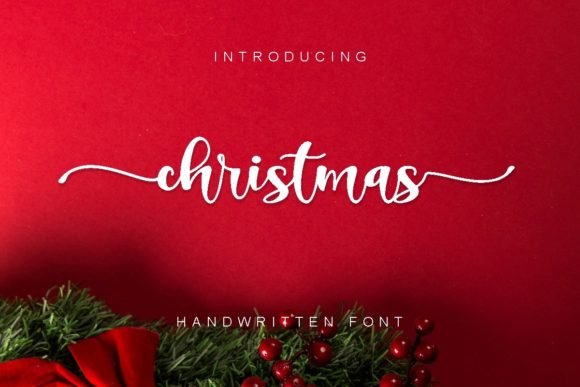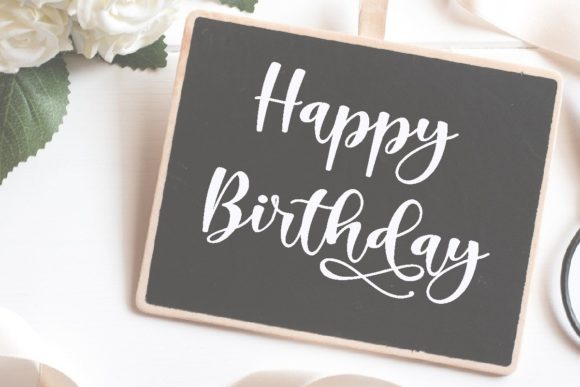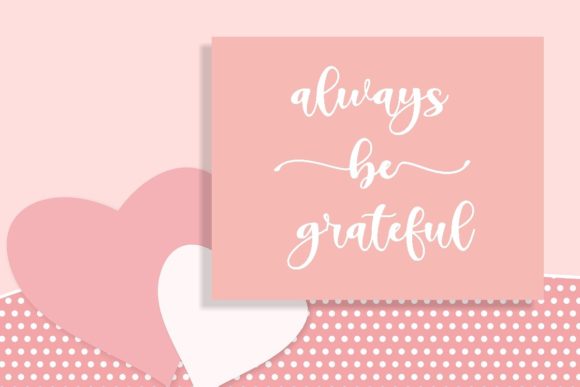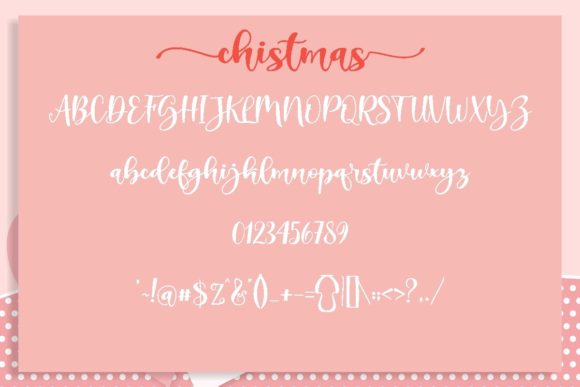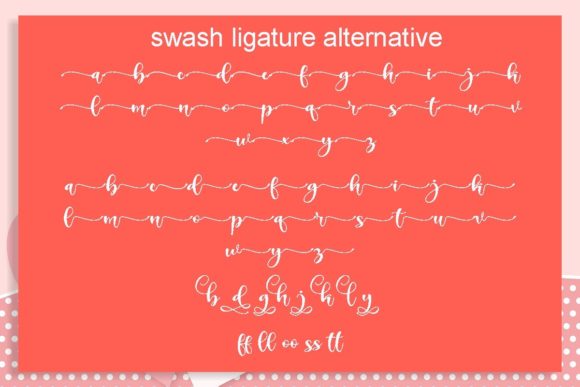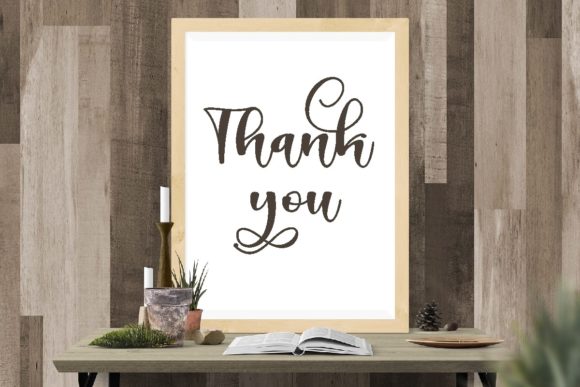
A Spark of Magic in Every Line: Introducing Christmas Font
It’s that time of the year when creativity is in the air, and the festive season inspires us to create something truly special. As I sat down to plan my holiday card design, I knew I needed a font that would capture the essence of Christmas – something elegant, yet playful, and oh-so-festive. That’s when I stumbled upon the enchanting Christmas Font – a calligraphy typeface that exudes luxury and romance, perfect for adding a touch of magic to any design project.
With its beautiful, flowing characters that dance along the baseline, the Christmas Font is a designer’s dream come true. Not only does it add a touch of sophistication to any design, but it’s also incredibly versatile, making it perfect for a wide range of projects, from greeting cards to packaging and more.
Key Features of Christmas Font
- Unique Characteristics: Features festive and holiday-themed ornaments, symbols, and glyphs to add a touch of Christmas spirit to your designs.
Designer Review: Christmas Font
✨ The Christmas Font has a lot going for it. The design is festive and fun, making it perfect for holiday-themed projects. The font itself is playful, with bold lines and whimsical details that evoke a sense of nostalgia. The characters are well-designed, with no major issues with readability or legibility.
✨ The font also comes with a range of ornaments and decorations that can be used to add some extra flair to your designs. These include snowflakes, holly leaves, and even a few festive animals. The ornaments are well-designed and can be used to create a cohesive look for your project.
- ⚠️ Limited language support: The Christmas Font only includes characters for English, which may be a problem for designers working on multilingual projects.
- ⚠️ Not suitable for serious projects: While the font is great for holiday-themed projects, it may not be the best choice for more serious or formal designs.
- ⚠️ Some characters may not be perfect: While the font is well-designed, some characters may not be perfect. For example, the ampersand (&) may not be perfectly aligned with the surrounding text.
Overall, I think the Christmas Font is a great choice for holiday-themed projects. It’s fun, festive, and easy to use. However, it may not be the best choice for more serious or formal designs. With a little bit of creativity and some careful selection of characters, you can create some truly amazing designs with this font.
The Christmas Font is ideal for creating festive and holiday-themed designs, such as:
Christmas cards and invitations
Holiday social media graphics
Gift tags and wrapping paper
Party decorations and invitations